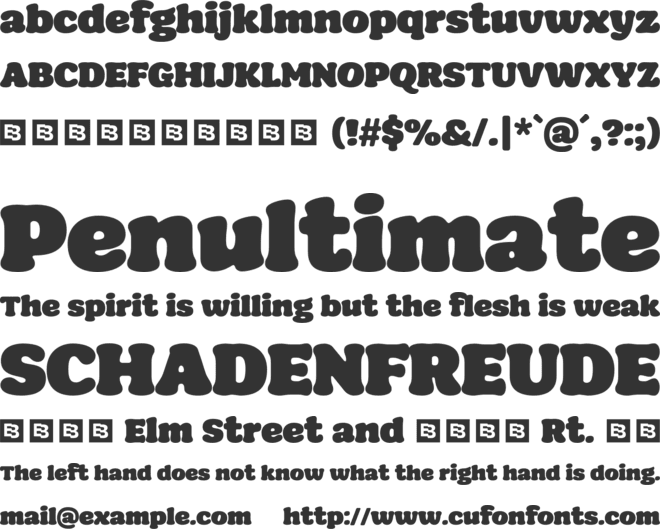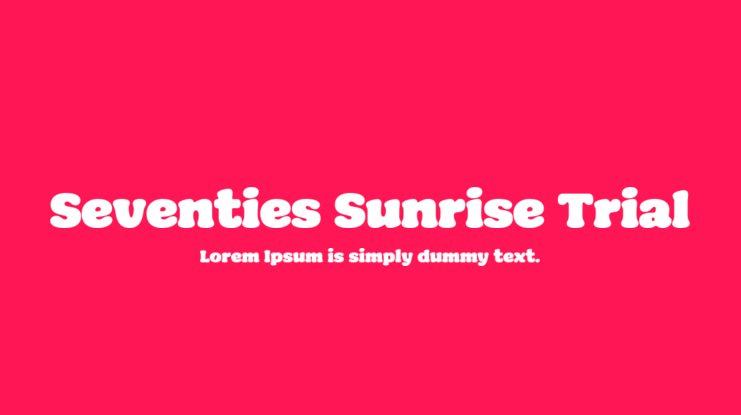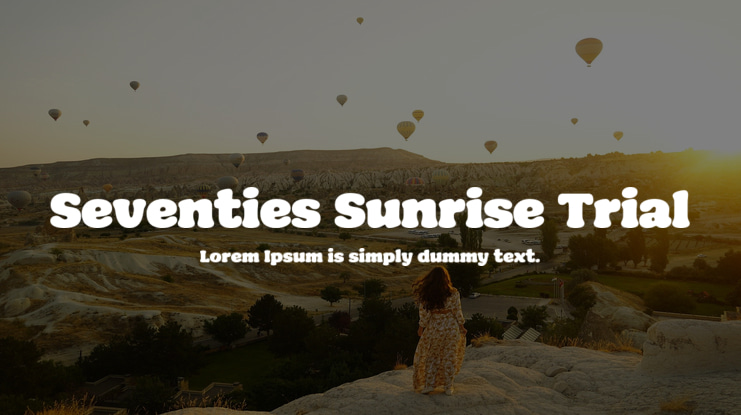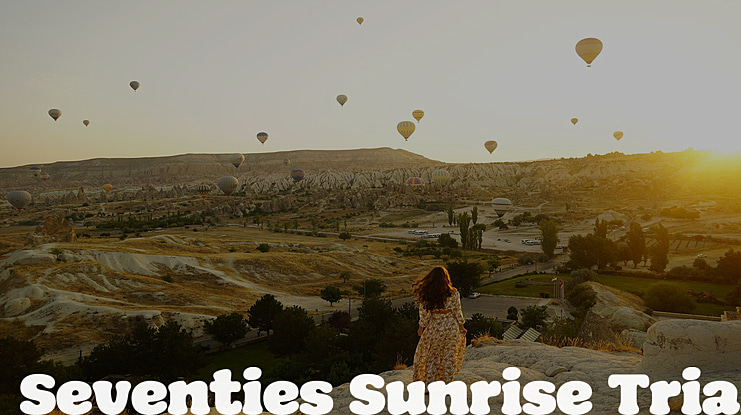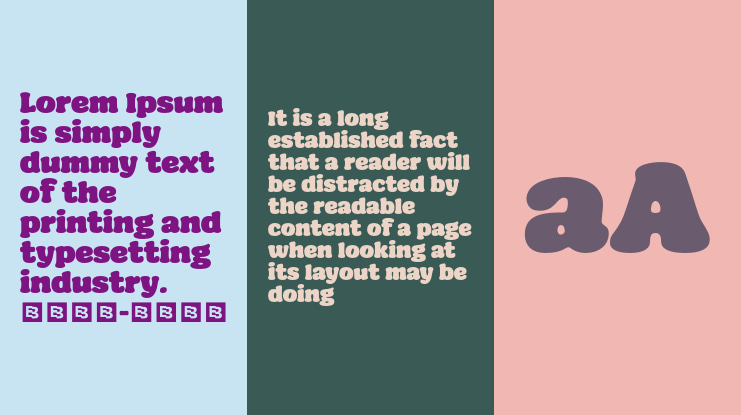
Seventies Sunrise Trial Font
This is a modern vintage serif font created by Eko Bimantara with beautiful ligatures, tons of alternative glyphs and multilingual support. Great choice for your seventies design theme, fit for various design and creative purposes including logo, branding, product, titles, headline, website, large display, merchandise and others.